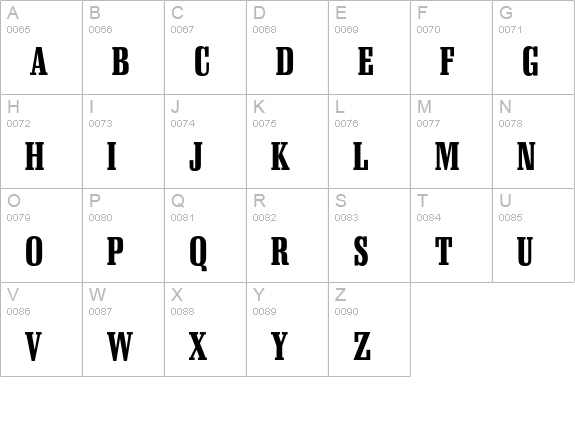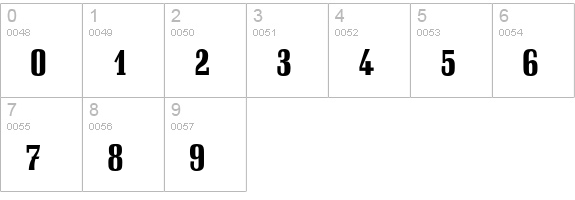
Schadow-Antiqua Condensed Bold Font Details
Schadow-Antiqua Condensed Bold is a strong, high-contrast, condensed-width variant in the Schadow typeface family \xE2\x80\x94 well suited to headlines, attention-grabbing titles, and strong calls-to-action.
Schadow-Antiqua Condensed Bold is a captivating and versatile typeface that exudes elegance and sophistication. With its condensed and bold design, this font is perfect for making a bold statement in any design project. The strong and commanding presence of Schadow-Antiqua Condensed Bold makes it ideal for headlines, titles, and branding materials. Its condensed form allows for maximum impact, enabling your message to stand out and capture the attention of your audience. The meticulously crafted letterforms of Schadow-Antiqua Condensed Bold showcase a harmonious balance between classic and modern design elements. The clean lines and subtle curves create a sense of timeless beauty, making this font a timeless choice for any design application. What sets Schadow-Antiqua Condensed Bold apart is its versatility. It effortlessly adapts to various design styles and themes, making it suitable for a wide range of projects, from print materials to digital designs. Whether you are working on a logo, poster, website, or packaging, this font will elevate your design and give it a touch of sophistication. As an added bonus, Schadow-Antiqua Condensed Bold is freely available to download at FontsMarket.com. This means that you can easily access and use this exceptional font in your projects without any restrictions. It offers you the freedom to explore your creativity and bring your design ideas to life. In conclusion, Schadow-Antiqua Condensed Bold is a remarkable font that combines elegance, versatility, and accessibility. Its bold and condensed design makes it perfect for creating impactful designs, while its freely available download ensures that you can use it without limitations. Add a touch of sophistication to your design projects with Schadow-Antiqua Condensed Bold and let your creativity shine.